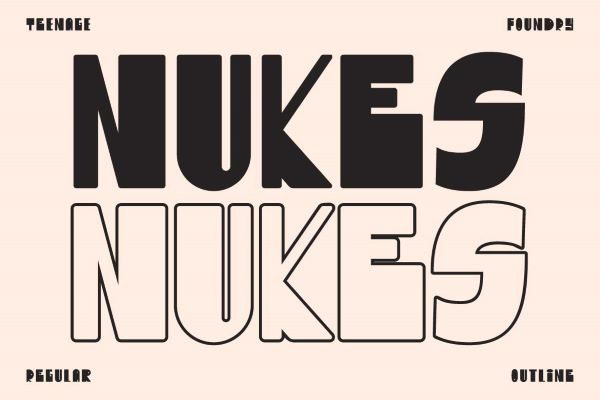
TF Nukes Font
TF Nukes by Teenage Foundry is a free outline font that demands attention and holds it — its strong, declarative letterforms built for headlines, logotypes, poster titles, and any design context where subtlety is beside the point. The Regular and Outline variants each bring their own energy: the Regular strikes with solid authority, while the Outline opens up a graphic, layered possibility. As a bonus, nine hand-drawn illustrations ship alongside the font, designed to complement its visual language and give creative projects instant cohesion. Multilingual support, alternates, and multiple export formats are all included. Free for personal use.